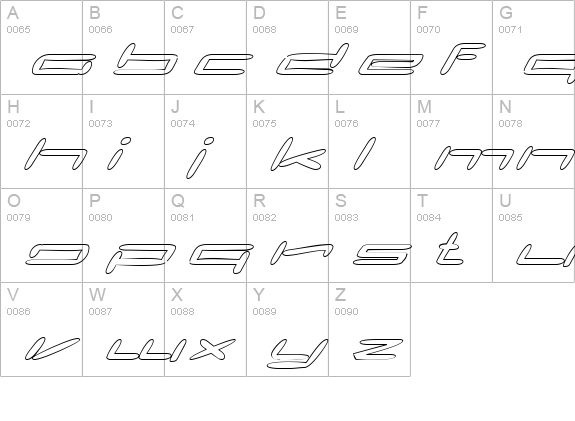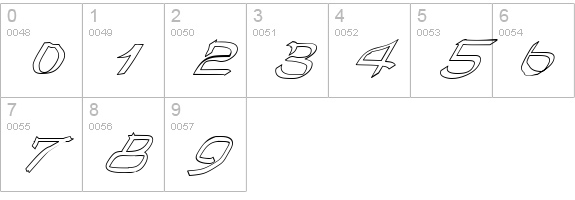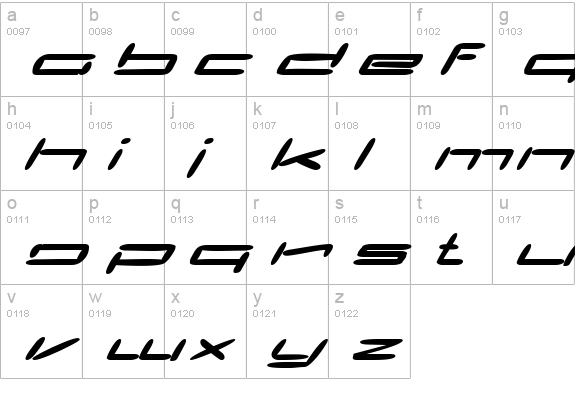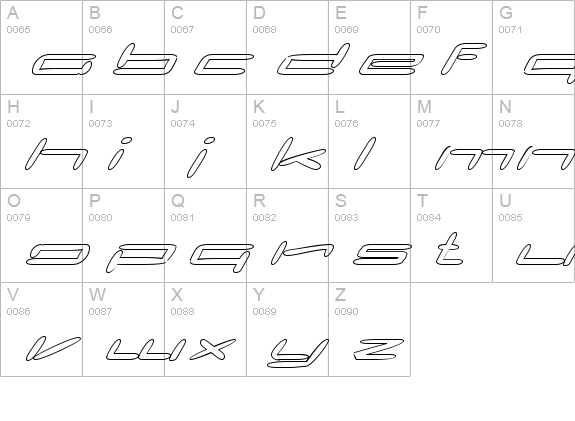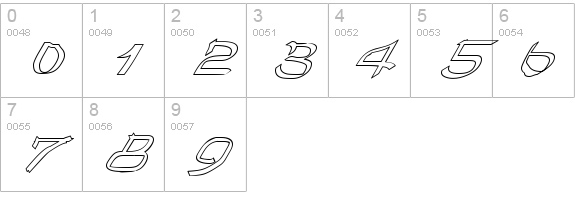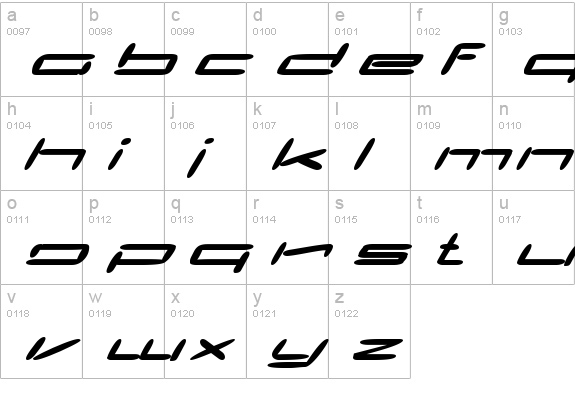
Claytoona Font Details
Claytoona font is a versatile and stylish typeface that exudes a sense of creativity and modernity. Its sleek lines and bold curves make it perfect for a wide range of design projects, from logos to posters to websites. With its unique personality and contemporary aesthetic, Claytoona font is sure to make your text stand out and leave a lasting impression on your audience. The best part? Claytoona font is available for free download at FontsMarket.com, making it easily accessible to designers and creatives looking to add a touch of sophistication to their work. Whether you're working on a branding project or creating eye-catching graphics for social media, Claytoona font is a must-have addition to your font library. Download it today and elevate your designs with this stylish and modern typeface.